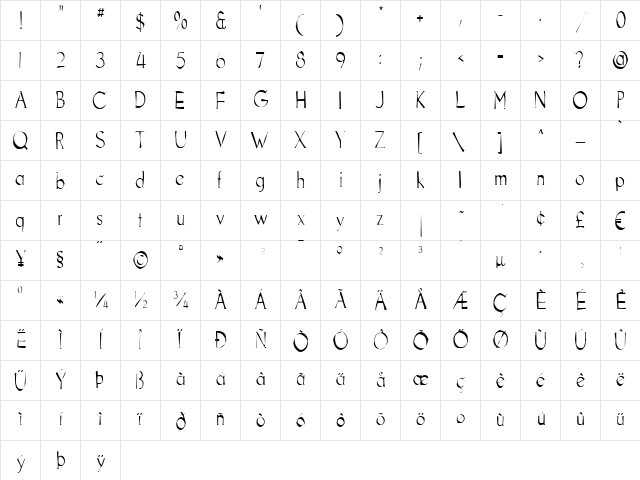
Goodfish Gaunt Regular Font Preview
Goodfish Gaunt Regular
Design Context for Goodfish Gaunt Typeface
Goodfish Gaunt offers clean, dependable letterforms without strong stylistic allegiance, making it a practical choice for designers who need flexibility.